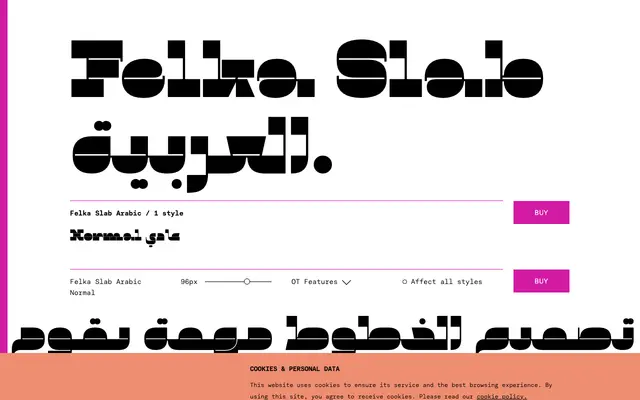
Felka Slab Arabic
A single-weight Arabic companion to Felka Slab, pairing Thomas Thiemich's extreme 19th-century-inspired display construction with a purpose-drawn Arabic script.
Built on the logic of Felka's Latin — capitals reduced to three stacked fat bars, lowercase to just two — this Arabic companion extends the family's radical minimalism into Arabic script. The design sits within a broader Felka suite that includes Brick and Leaf subfamilies, all sharing the same underlying tension between 19th-century display excess and early 20th-century geometric restraint. OpenType features include lining and oldstyle figures, stylistic alternates, case-sensitive forms and dedicated figure-switching options for Latin numerals within Arabic text.
A radical display face drawing on 19th-century extremes such as Caslon Italian, with capitals built from three fat bars and a minimal two-bar lowercase. The slab construction and extreme weight contrast place it firmly in the display category.